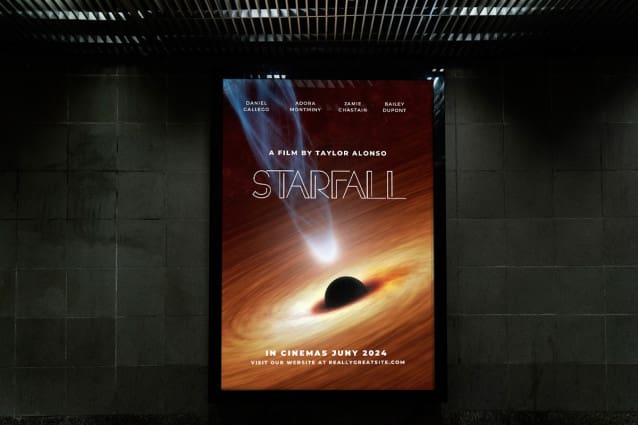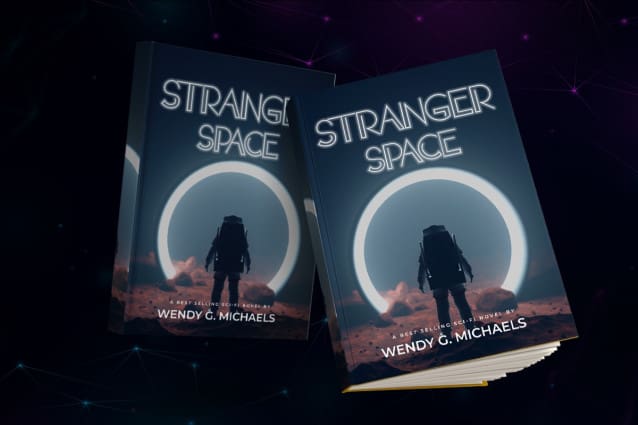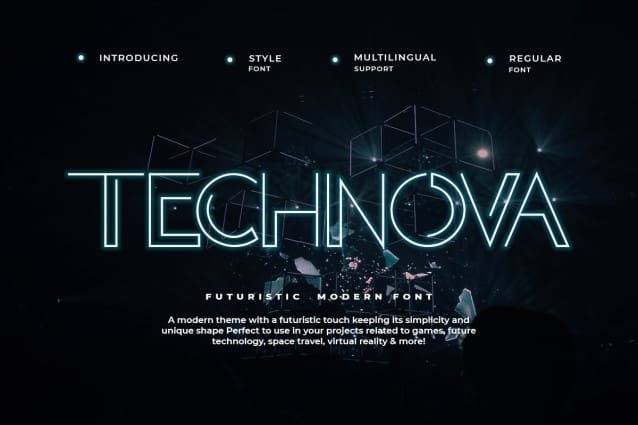
Technova Futuristic Font
Technova Futuristic Font – Modern Futuristic font features strong modern font elements. Each letter of this font is easy to distinguish. You can see from a distance or close up. The letters in this font resemble streams of light designed to look modern, futuristic, and mechanical.
This type of font is the best for projects using themes of games, future technology, space travel, and visual reality. This font can be used as a digital font, such as on the web, video, and other displays, and as a printed font on posters, banners, and book covers. Technova Futuristic Font – Modern Futuristic font can use on the covers of tech books and magazines.
Technova Futuristic Font is upright and clean, but this font type is not suitable for writing newspapers, magazines, or articles on the web. This font is better used for writing short sentences or words because it will look clear and bold. This font is included in legible fonts.